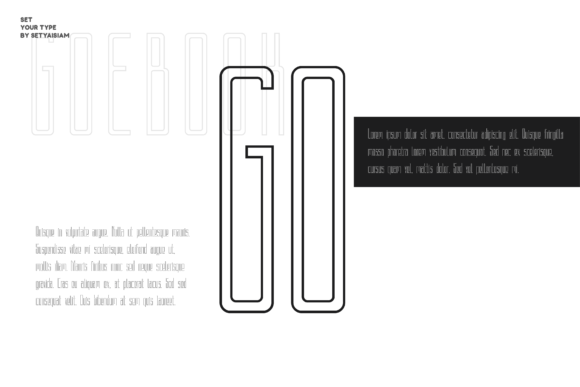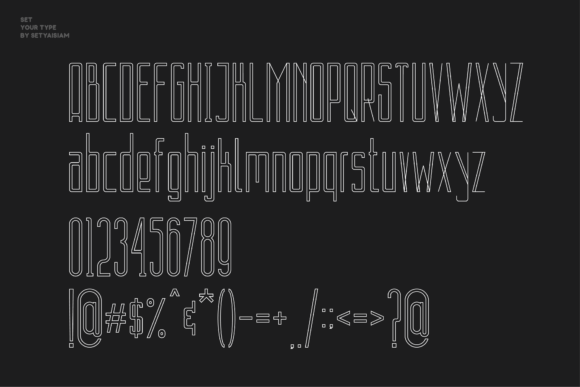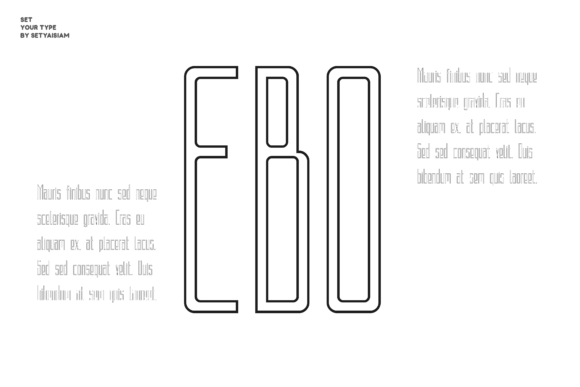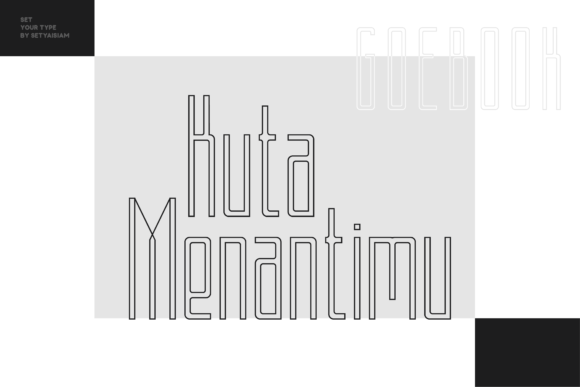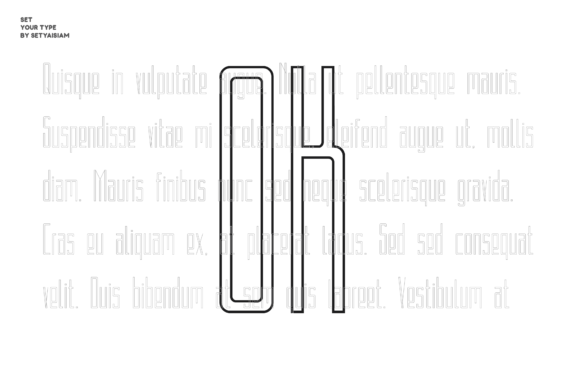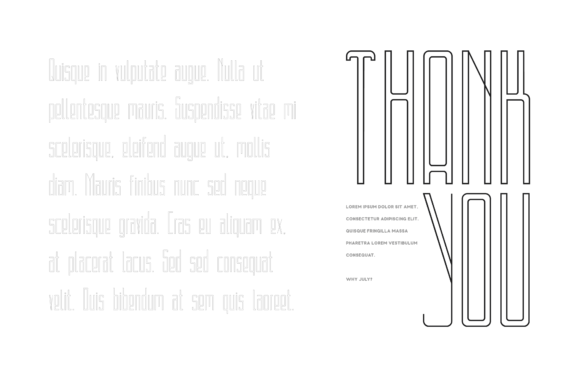
The Elegance of Geobook Font: A Designer’s Delight
I’ll never forget the time I was working on a wedding invitation project, and my client asked for a font that was both elegant and unique. I scoured the internet, tried countless fonts, but nothing seemed to fit the bill. That was until I stumbled upon Geobook Font. ✨ It was love at first sight! The beautiful, flowing lines and exquisite details immediately caught my attention. In this article, I’ll share my experience with Geobook Font, its features, and how to make the most of it in your designs.
An Honest Review of Geobook Font
- ✨ Unique and elegant design that’s perfect for display purposes
- ✅ Highly versatile and can be used for various design projects, such as wedding invitations, thank you cards, logos, and more
- 💫 Beautifully crafted to add a touch of sophistication to any design
- 🎨 Supports OpenType features, glyphs, and stylistic alternates for added creativity
While Geobook Font is an excellent choice for many design projects, there are a few things to keep in mind:
- ⚠️ May not be suitable for body text due to its display nature
- 🤔 Limited availability of certain characters or glyphs, so be sure to check the font’s capabilities before use
The Backstory of Geobook Font
Geobook Font was designed with the intention of creating a beautiful, elegant display font that would add a touch of sophistication to any design. The font’s creator aimed to craft a unique and versatile typeface that would be perfect for a variety of design projects, from wedding invitations to logos. While the exact backstory of Geobook Font may be unknown, its design is undoubtedly inspired by classic elegance and refinement.
| Font Name | Goebook Font |
| Author | setyaisiam |
Q: What type of designs is Geobook Font best suited for?
A: Geobook Font is ideal for display purposes, such as wedding invitations, thank you cards, logos, and other designs requiring a personalized style.
Q: Is Geobook Font suitable for body text?
A: No, Geobook Font is a display font and may not be suitable for body text due to its elegant and ornate nature.